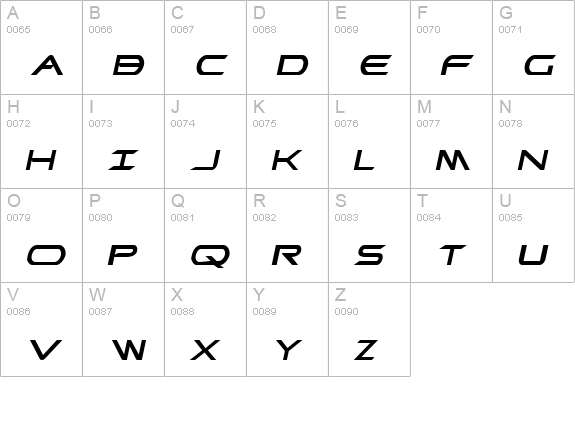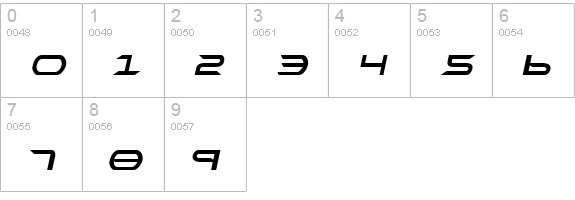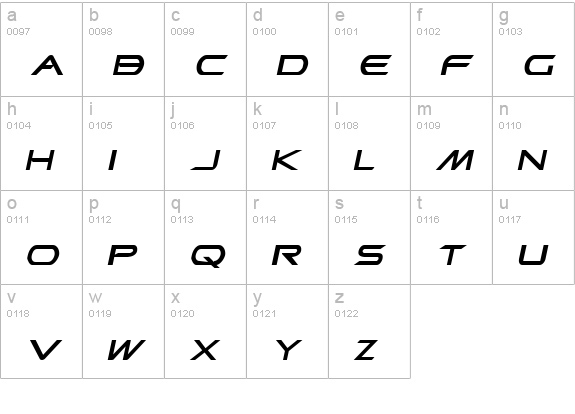
Promethean Expanded Italic is a distinctive, extended-width, italic variant in the Promethean typeface family \xE2\x80\x94 well suited to design and typography projects.
Promethean Expanded Italic font is a stunning typeface that exudes elegance and sophistication. With its sleek and modern design, this font is perfect for adding a touch of style to any project. The italicized version of the Promethean Expanded font brings a sense of dynamism and flair, making it ideal for creative and eye-catching designs. What makes Promethean Expanded Italic font even more appealing is that it is available for free download at FontsMarket.com. This means you can easily access this gorgeous font without any cost, making it a valuable addition to your font collection. Whether you're working on a branding project, a poster design, or any other creative endeavor, Promethean Expanded Italic font is sure to make a bold statement and elevate your work to the next level. Download it now and unleash your creativity with this exquisite typeface!